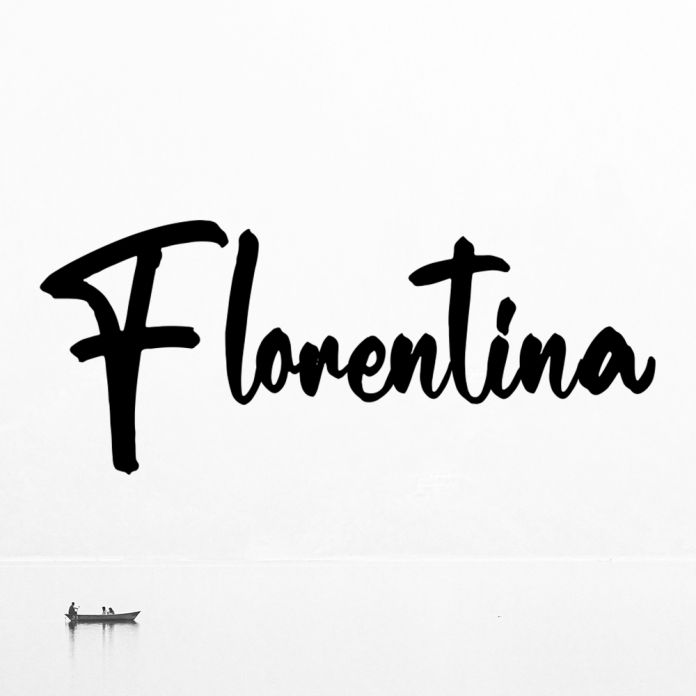
Florentina is a flowing handwritten font, described by an elegant touch, perfect for your favorite projects. Fall in love with its incredibly distinct and timeless style and use it to create spectacular designs! This font is also PUA encoded which means you can access all of the glyphs and ligatures with ease!